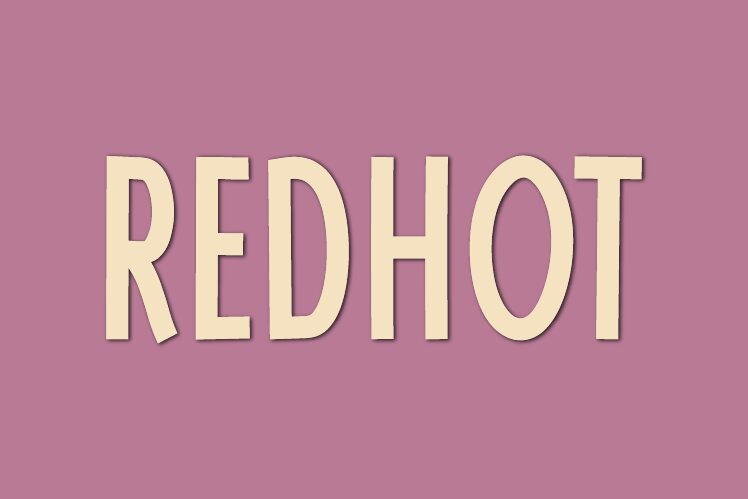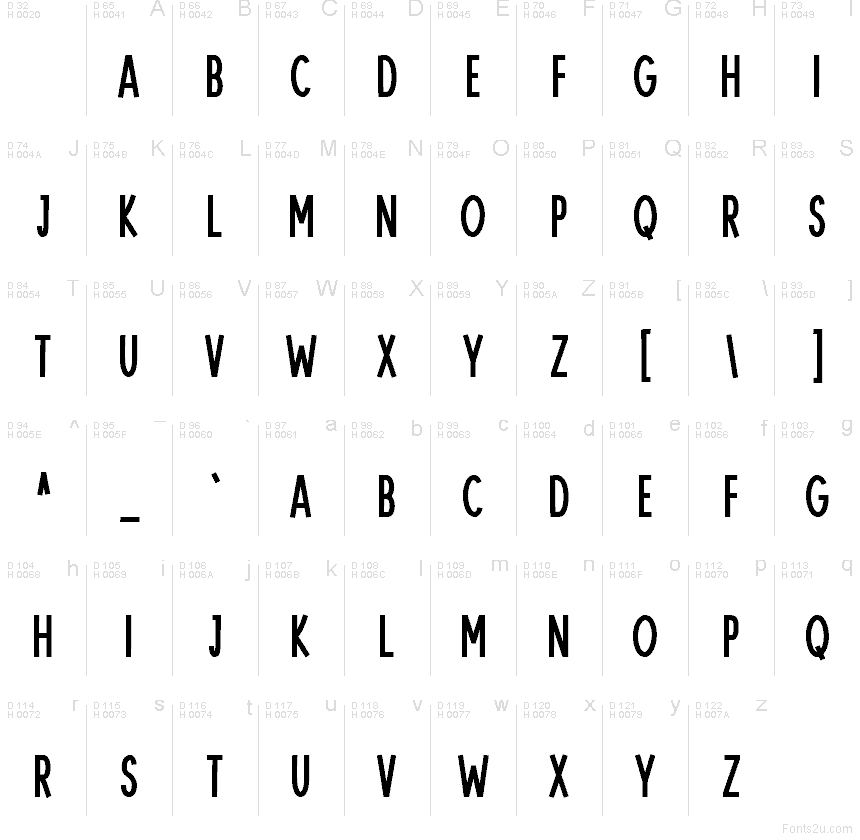
Redhot font by HannaBie Creative Studio is a free display typeface that grabs attention even when space is tight. Its tall, ultra-condensed letters stack into a solid black column of ink, giving you loud, punchy headlines without eating up your layout. The straight-sided forms and tight rhythm feel bold and modern, like posters wheat-pasted on a city wall.
Using Redhot, you can squeeze big statements onto event posters, magazine covers, book jackets, product packaging, social graphics, and bold website hero text. This free font thrives at large sizes where its dense, blocky texture can really shout. Pair Redhot with a clean, neutral sans or serif for body copy, and let it handle the short, high-impact words that need to be seen from across the room.